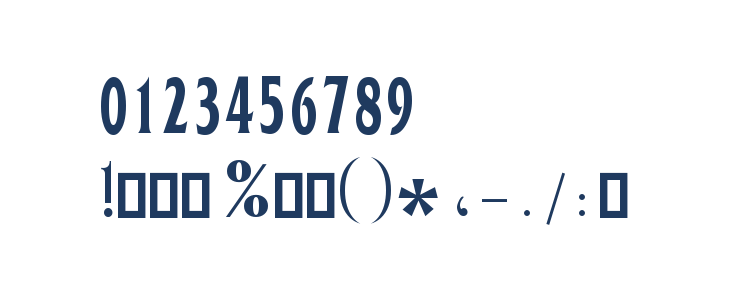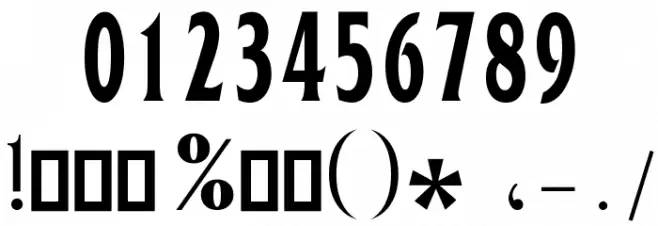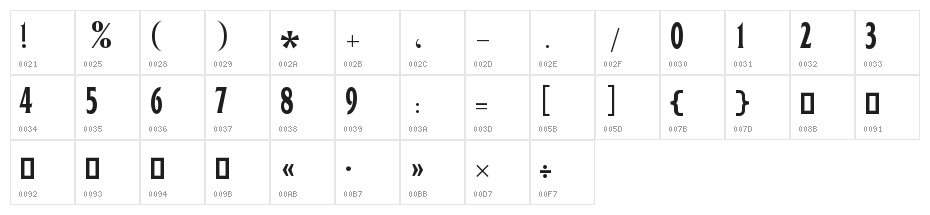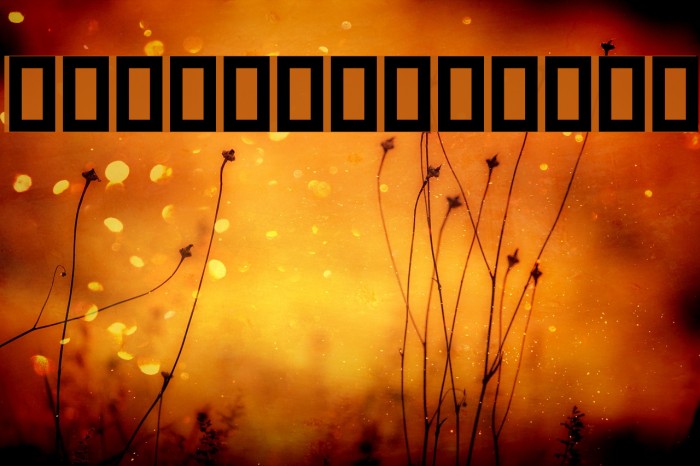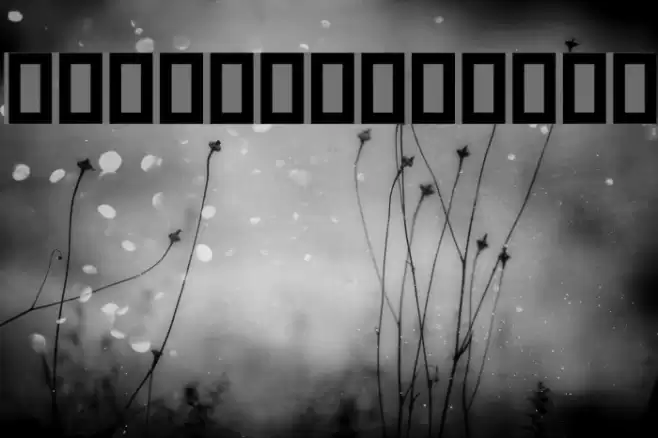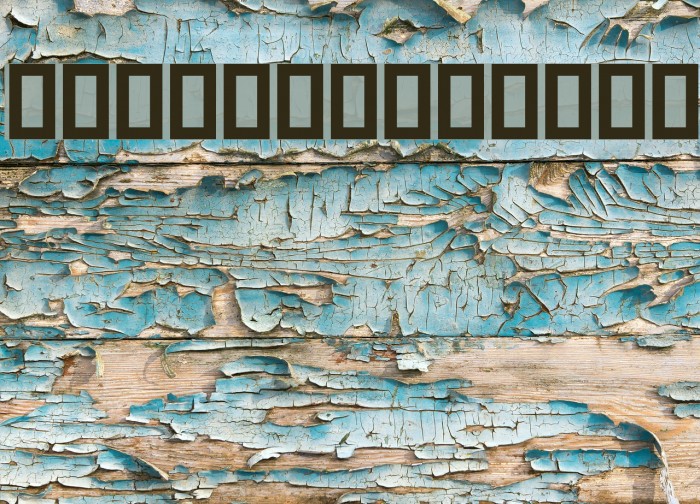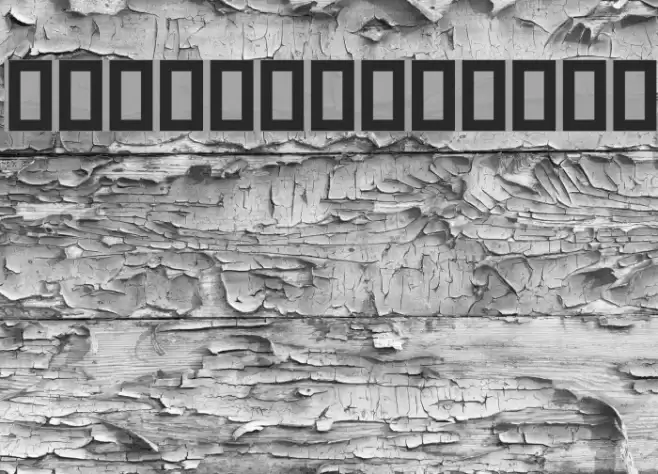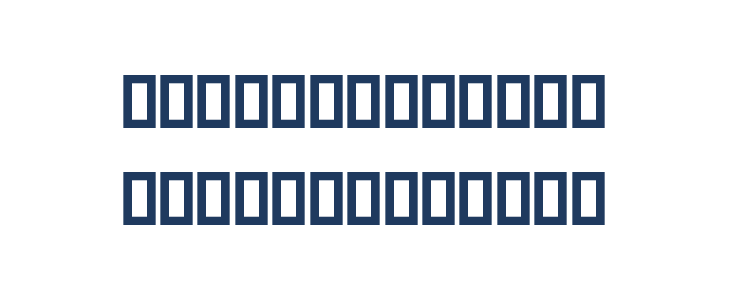
Islam Font
Islam Description
This font features a classic serif style with elegant curves and a traditional appearance. The numerals are distinct with a slight slant, adding a touch of sophistication. The special characters are well-defined, maintaining the overall aesthetic of the font. The strokes are consistent, providing a balanced look that is both formal and timeless. The font's design is suitable for conveying a sense of authority and reliability, making it ideal for professional and formal applications.
| Proposed Projects | Ideal for book covers, formal invitations, certificates, and editorial design. |